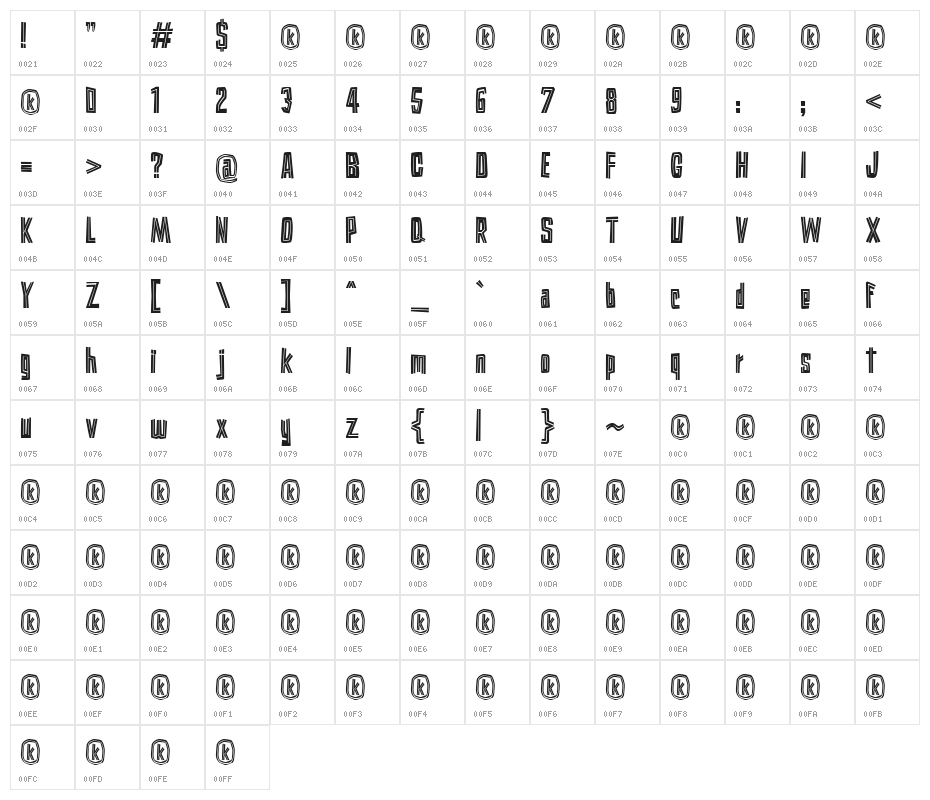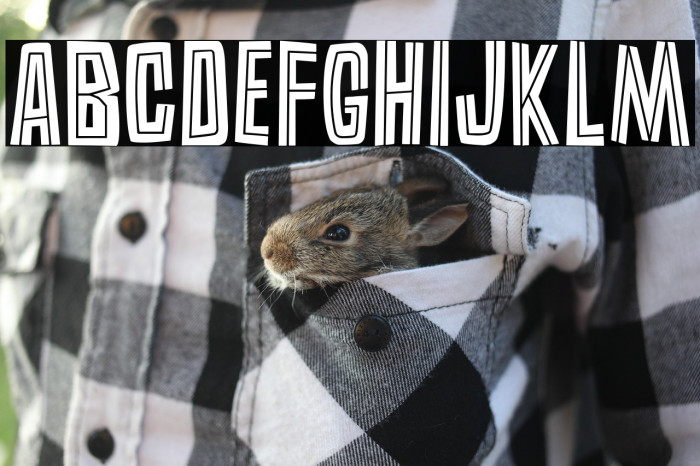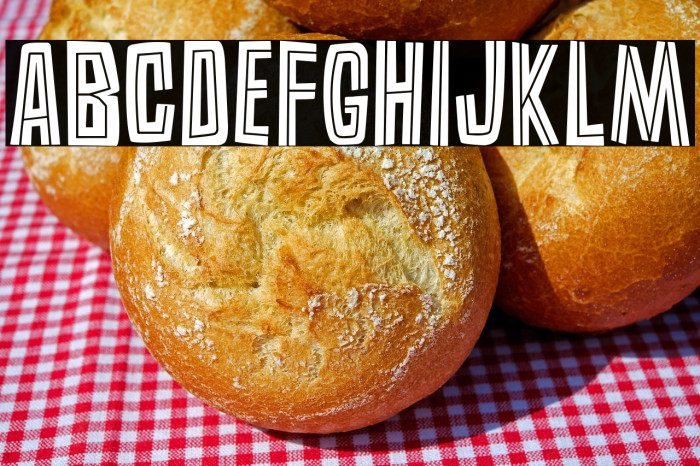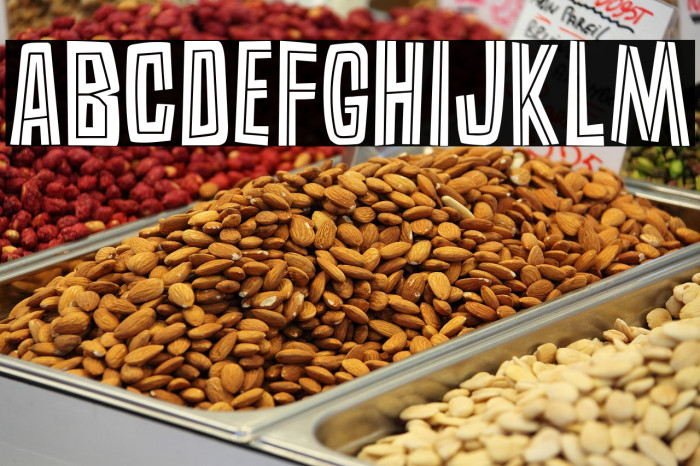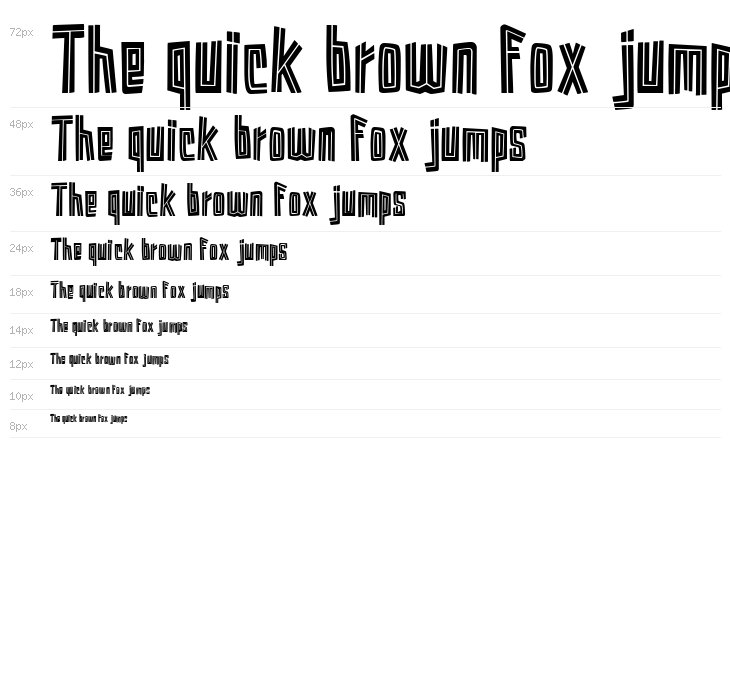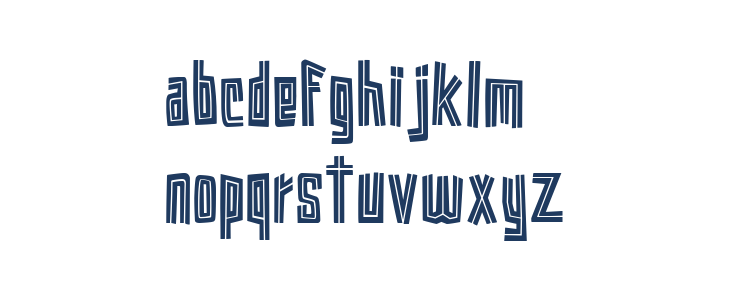
Burlesk Inline Font
Burlesk Inline Description
This font features a bold, decorative style with an inline design that adds a unique flair to each character. The uppercase and lowercase letters maintain a consistent width, creating a cohesive look. The numbers are equally bold and maintain the same inline style, ensuring uniformity across all characters. Special characters are included, matching the overall aesthetic. The font's playful yet structured appearance makes it suitable for eye-catching designs.